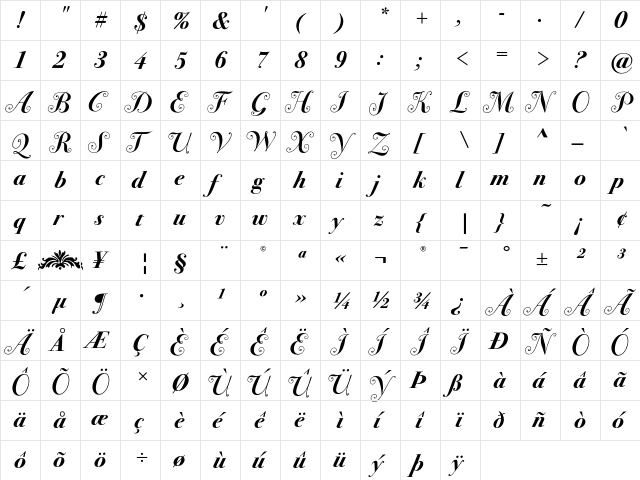
Bodoni Sev Swash ITC Bold Italic Font Preview
Design Context for Bodoni Sev Swash ITC Typeface
Bodoni Sev Swash ITC flows with the natural rhythm of handwritten lettering, making it ideal for designs that call for warmth and personal expression. Its bold stroke weight gives it real presence on the page.
Font Pairing: Combine Bodoni Sev Swash ITC with a simple geometric sans for maximum contrast — the tension between flowing curves and clean structure is a classic typographic pairing.
Pro Tip: Pair Bodoni Sev Swash ITC with a clean sans-serif for supporting text. The contrast between fluid script and geometric structure creates an elegant typographic hierarchy.